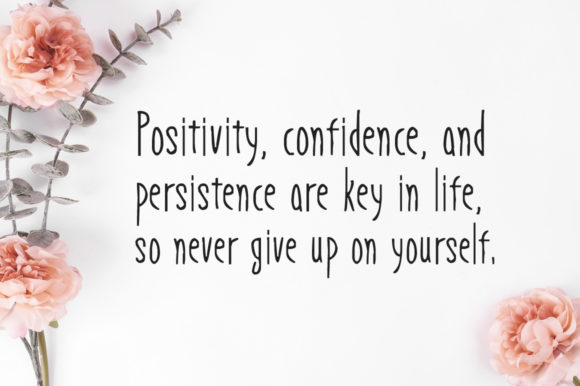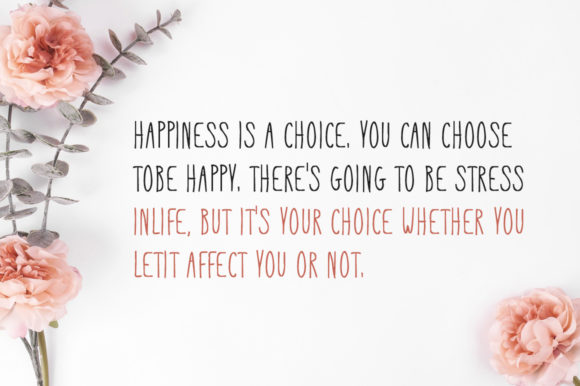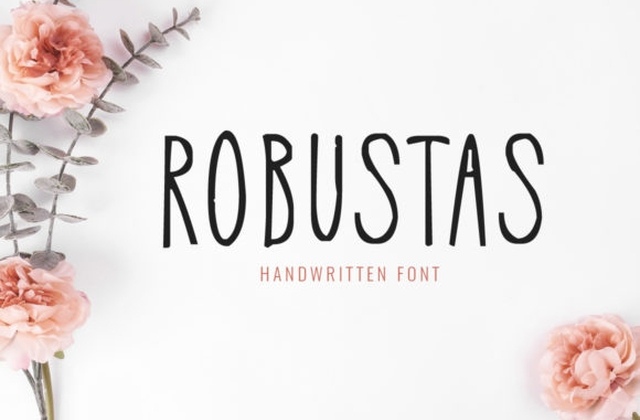
Robustas Font
Robustas Font is perfect for coffee shop branding, artisan packaging, menu designs, lifestyle magazines, and creative social media posts. Its warm and handcrafted vibe makes it an ideal choice for projects that aim to connect with audiences on a personal and authentic level.
What makes Robustas Font exciting is its charming combination of rustic elegance and modern readability. Each letterform carries subtle details that add personality, while still maintaining a clean and professional look—perfect for both casual and upscale design themes.
The Robustas Font family includes Regular, Bold, Italic, and Script variations, giving designers a versatile toolkit for diverse applications. Whether you’re designing a cozy café logo or a chic boutique flyer, this font adapts beautifully.